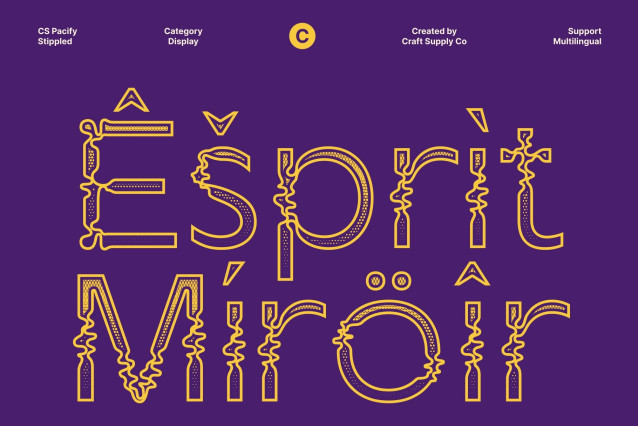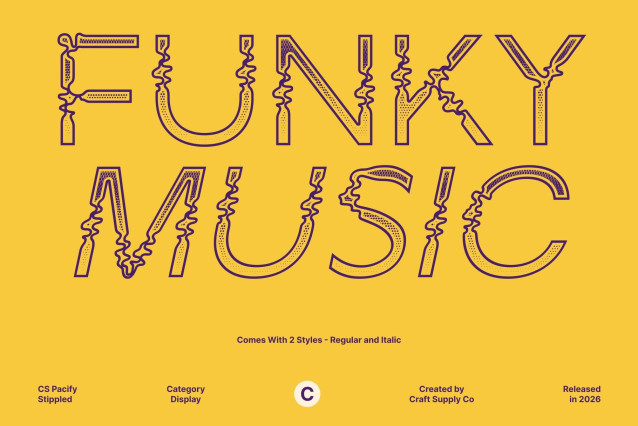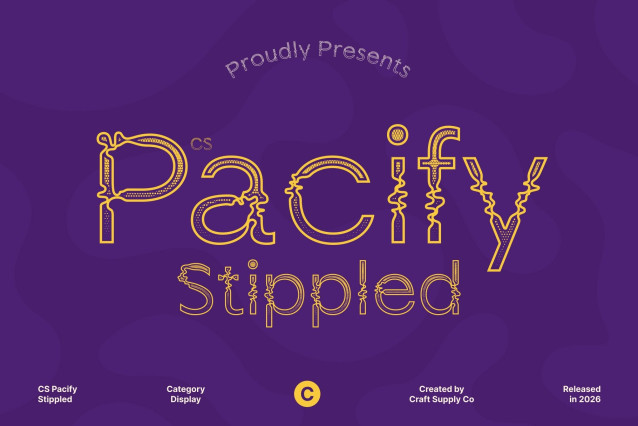
CS Pacify Stippled Font
CS Pacify Stippled – Psychedelic Font: A Vibrant Twist on Modern Design
Funky Sans Serif with Psychedelic Flair
This is a captivating sans serif display font that brings the spirit of psychedelic typography into modern design. Its playful, irregular, and fluid letterforms are enhanced with a stippled texture that adds depth and handcrafted character, creating a lively and energetic visual presence perfect for bold creative work.
Playful Curves with Dynamic Movement
Featuring rounded shapes and a distinctive rhythmic flow, this font captures attention with its free-spirited and expressive personality. The organic irregularities within each letter create a sense of motion and spontaneity, while the stippled detailing introduces an artistic, tactile feel that enriches experimental and eye-catching layouts.
Perfect for Creative and High-Impact Projects
Ideal for music event posters, festival branding, album covers, apparel, and artistic digital artwork, this font shines in projects that demand originality and visual excitement. Its vibrant psychedelic aesthetic invites audiences into a world of imagination, making every design feel energetic, expressive, and unforgettable.